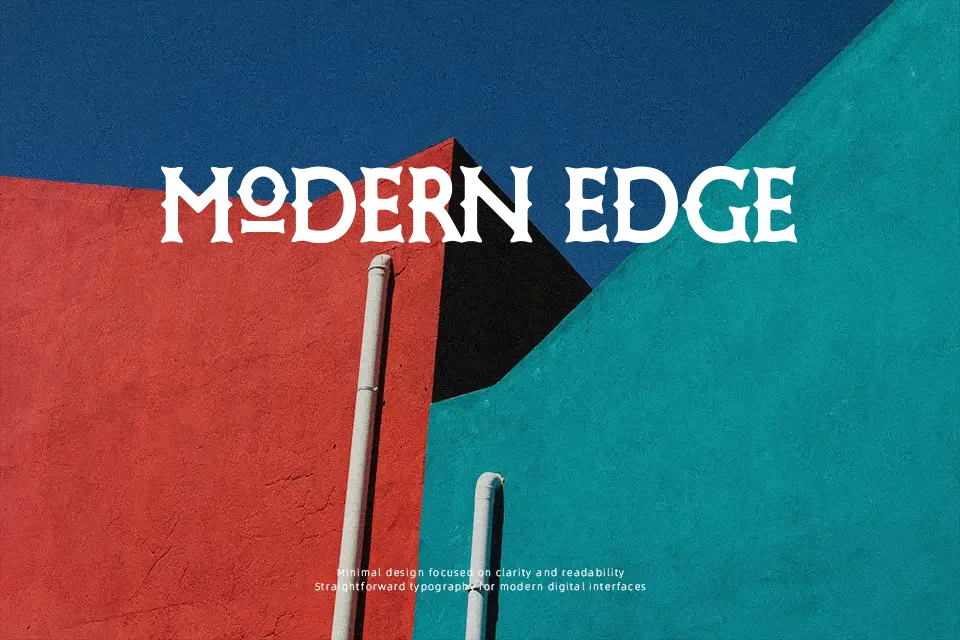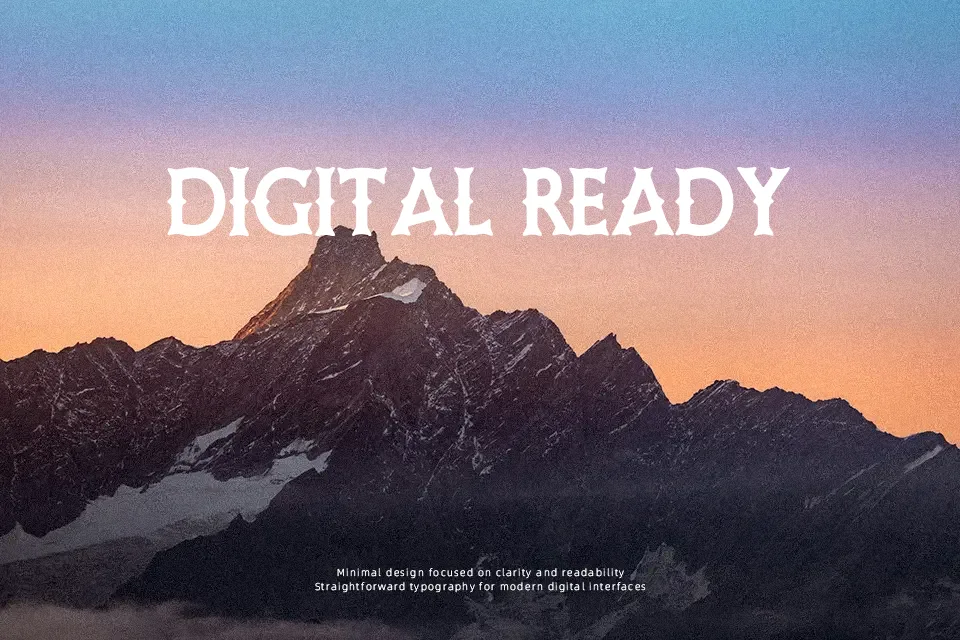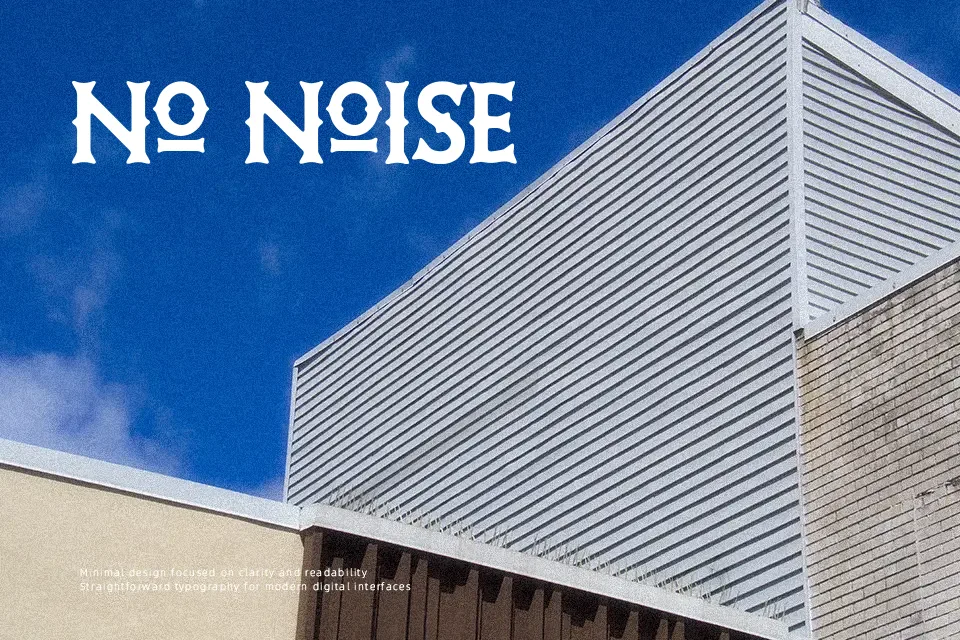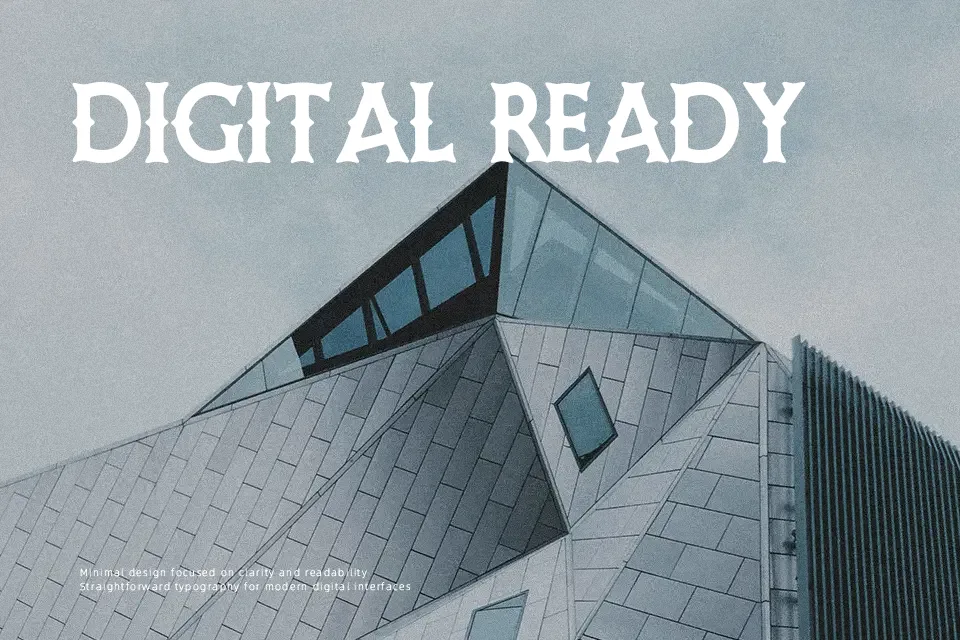
Rabble Rouser Font
Designed by Michael Hassler
Rabble Rouser Font introduces a structured, block-like aesthetic that immediately anchors a design. Evaluated visually, the letterforms feature heavy weight distribution, sharp angular joints, and prominent serifs that emulate classic biker jacket patches. The compact tracking establishes a steady rhythm, helping headlines maintain a solid, unified block of text. This unyielding approach performs exceptionally well in rugged apparel graphics, vintage branding, and striking logo applications. However, the aggressive weight and dense counters reduce continuous reading comfort, making the typeface less effective for medium or small typography. These strong structural choices prioritize raw display power over delicate legibility, confirming its intended role as a specialized headline tool.
apparel graphics, vintage branding, motorcycle club logos, striking posters
long paragraph text, small interface labels, dense editorial layouts
Perfect for branding, fashion, and logo, with a bold and decorative style.